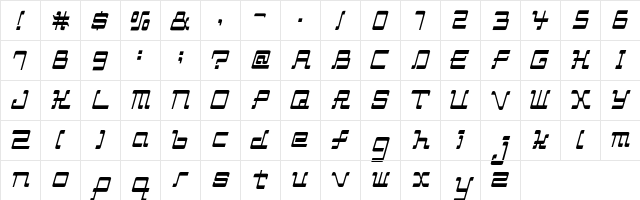
Maniac-AL Regular
Design Context for Maniac-AL Typeface
Maniac-AL is a composed and adaptable typeface that performs quietly and consistently across a wide range of design contexts.